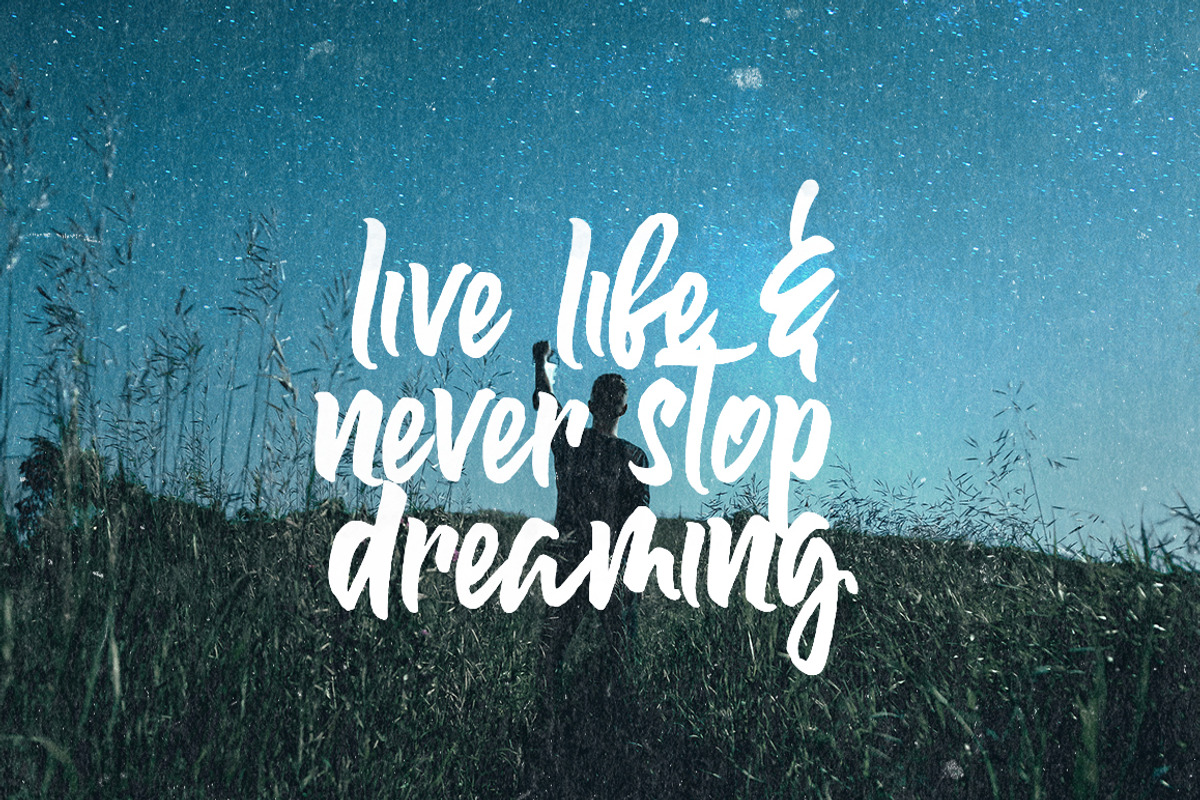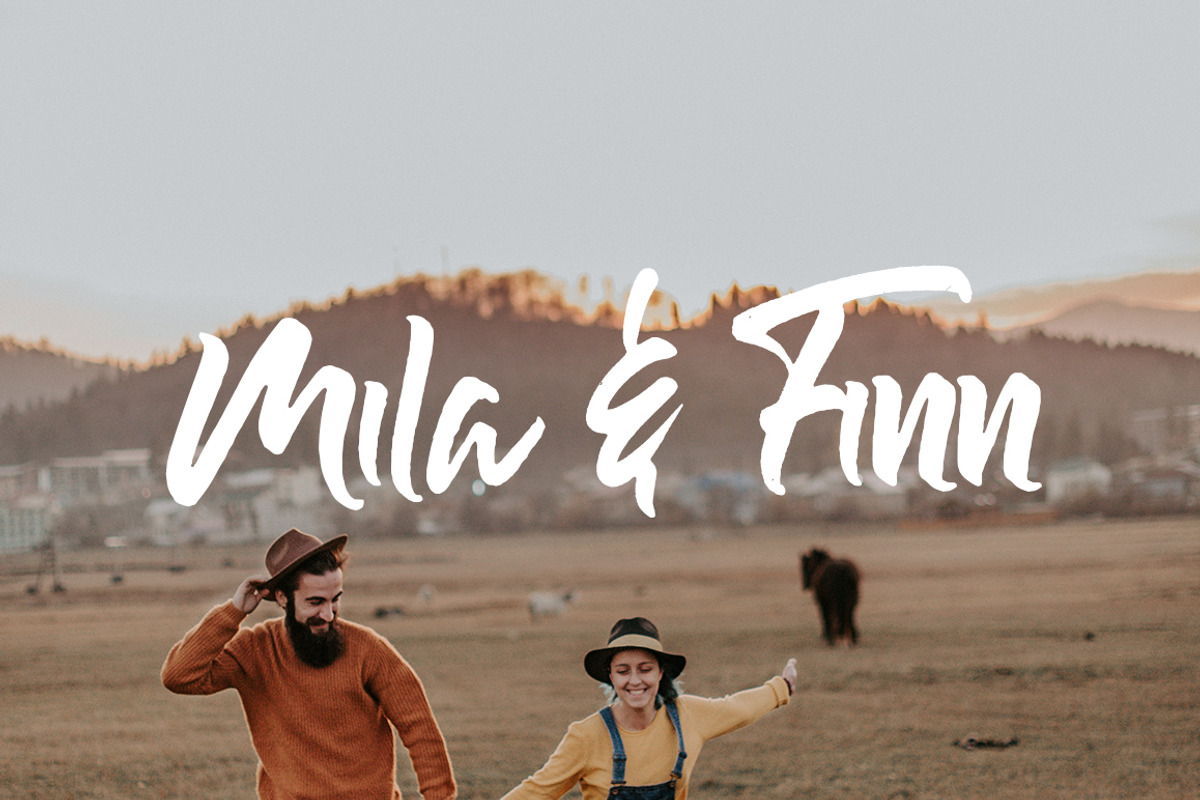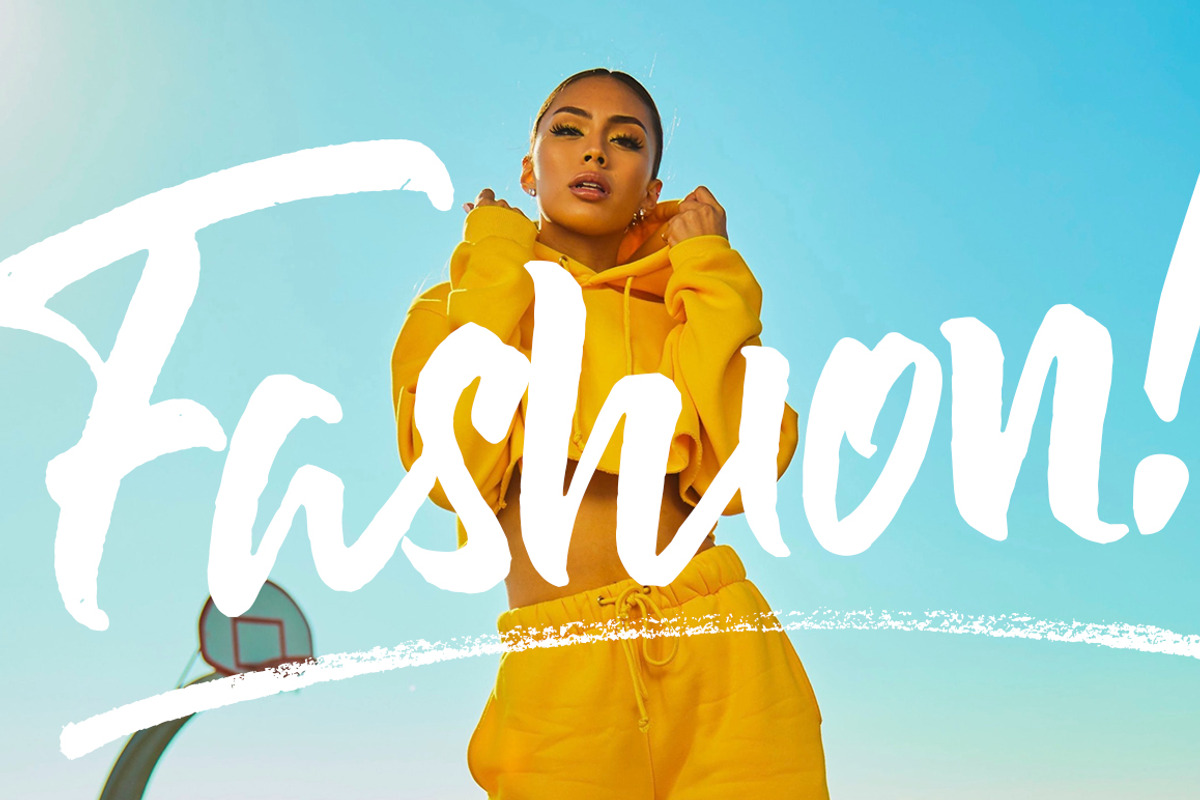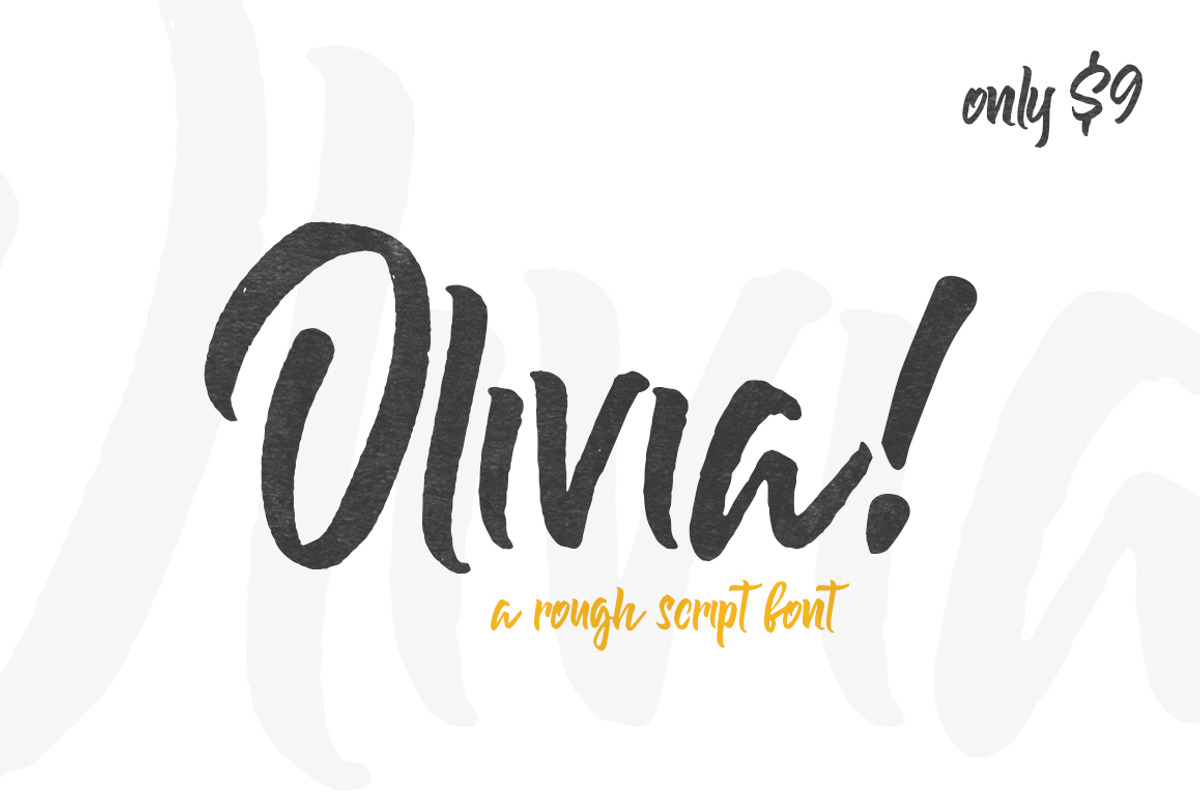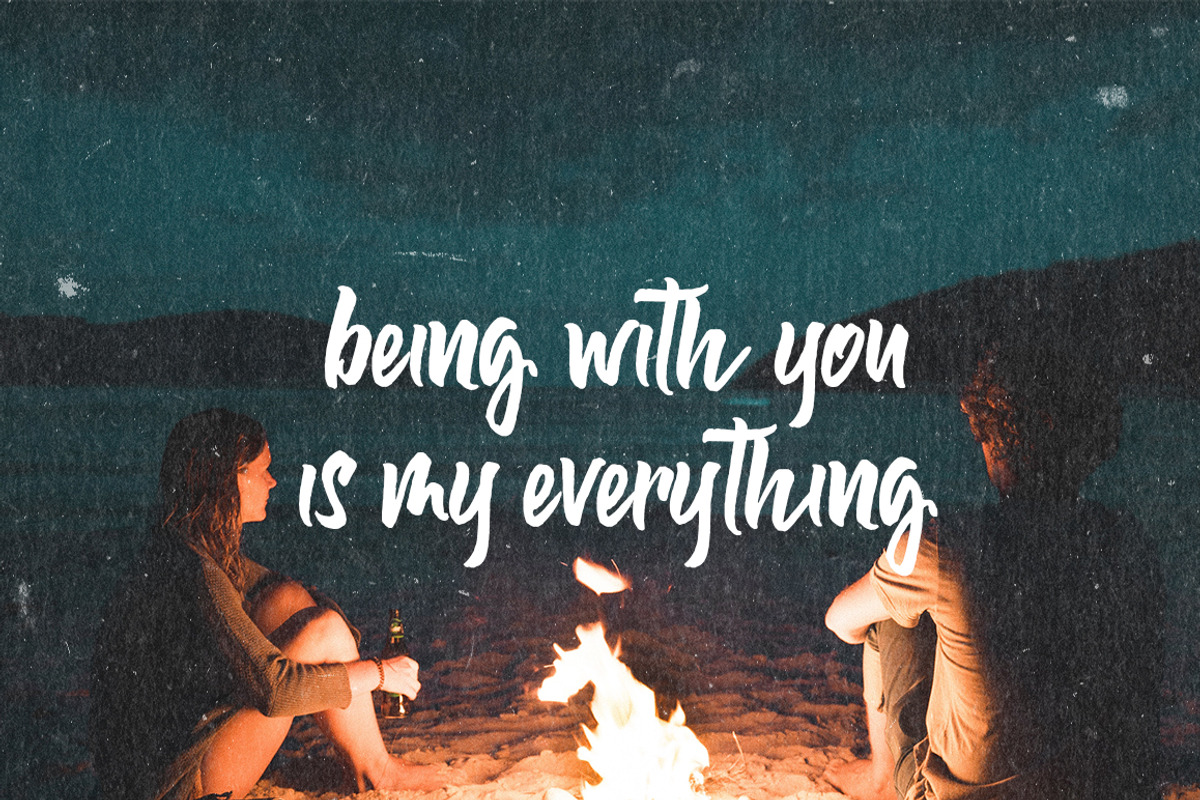
Olivia Rough Font
Olivia Rough is a beautiful new font that has a little sass in its rough edges! Perfect for adding a little spice to your designs and absolutely ideal for logo creation. Play around with it’s fabulous letters and see for yourself!